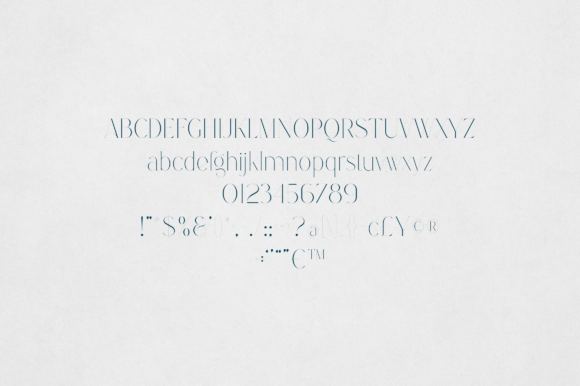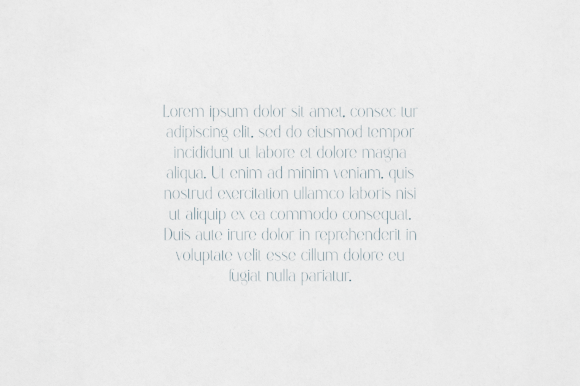
Discover the Elegance of Auden Font: Elevate Your Typography
I’ll never forget the moment I stumbled upon Auden Font while working on a branding project for a luxury home goods client. I had spent hours scouring font libraries, but nothing seemed quite right – until I saw Auden. Its elegant lines and versatile style immediately caught my eye, and I knew I had found the perfect fit. In this article, I’ll share my experience with Auden Font, its features, and how to make the most of it in your designs.
A Personal Review of Auden Font
- ✨ Elegant and sophisticated design that’s perfect for luxury brands
- ✅ Highly versatile, suitable for logos, headlines, and body text
- 💡 Excellent for creating visually appealing text overlays on background images
- 📦 Works beautifully for packaging designs, magazines, and home-ware projects
While Auden Font is incredibly powerful, there are a few things to keep in mind:
- ⚠️ Some users have reported issues with kerning on certain letter combinations – but this can be easily adjusted in most design software.
- 🤔 The font’s elegance can be overpowering if not paired carefully with other design elements.
The Story Behind Auden Font
Auden Font was designed with the goal of creating a versatile, elegant typeface that could be used across various mediums. Inspired by classic typography and modern design trends, Auden’s creator aimed to produce a font that would be both sophisticated and accessible. The result is a font that works beautifully in both digital and print applications.
| Is Auden Font suitable for body text? | Yes, Auden Font is designed to be legible and can be used for body text, especially in larger sizes. |
| Does Auden Font support OpenType features? | Yes, Auden Font comes with a range of OpenType features, including ligatures and stylistic alternates. |
| Is Auden Font easy to read on digital screens? | Auden Font’s elegant design translates well to digital screens, making it suitable for website headers, social media graphics, and more. |
In conclusion, Auden Font is a powerful tool for designers, crafters, and creative hobbyists looking to elevate their typography. Its elegance, versatility, and range of features make it perfect for a wide range of projects. By understanding its capabilities and limitations, you can unlock the full potential of Auden Font and create stunning designs that stand out.